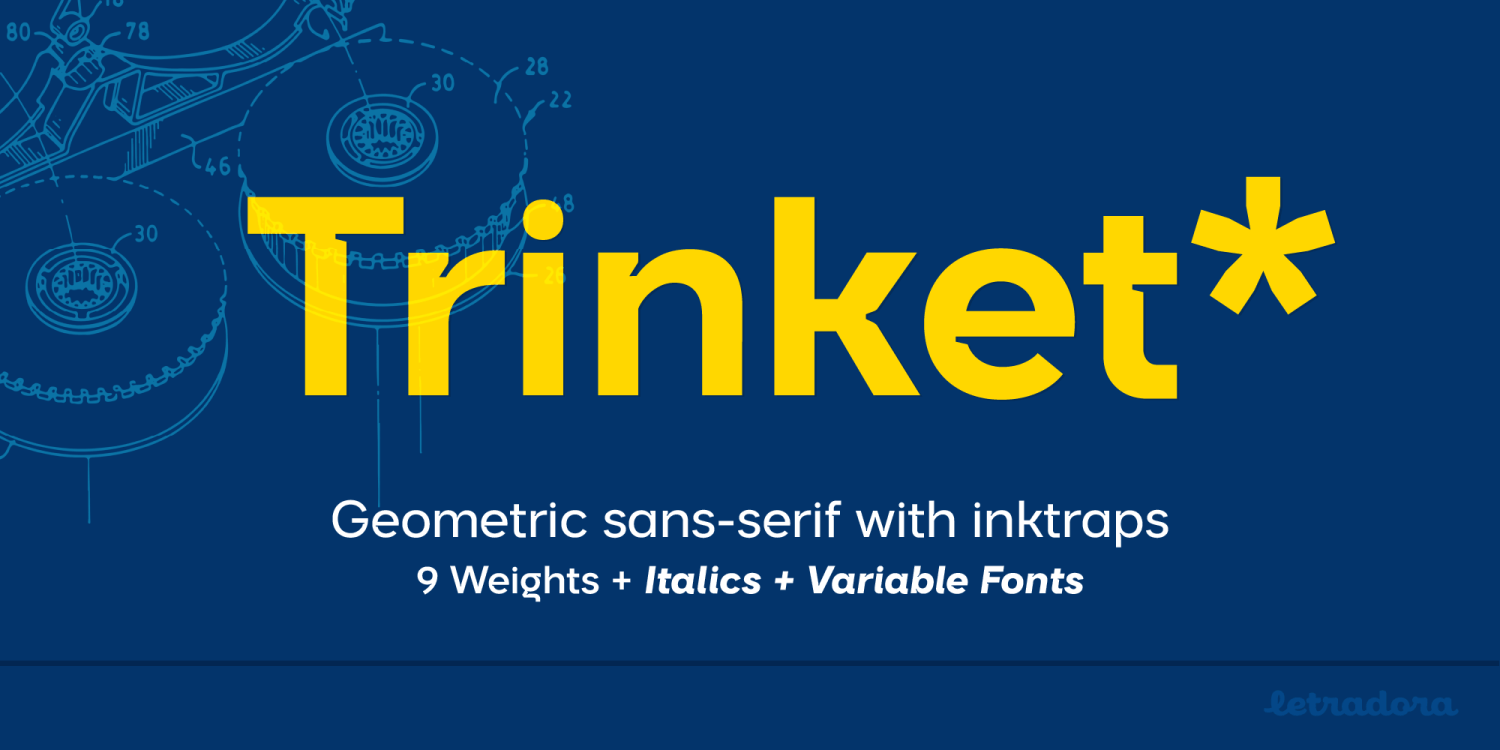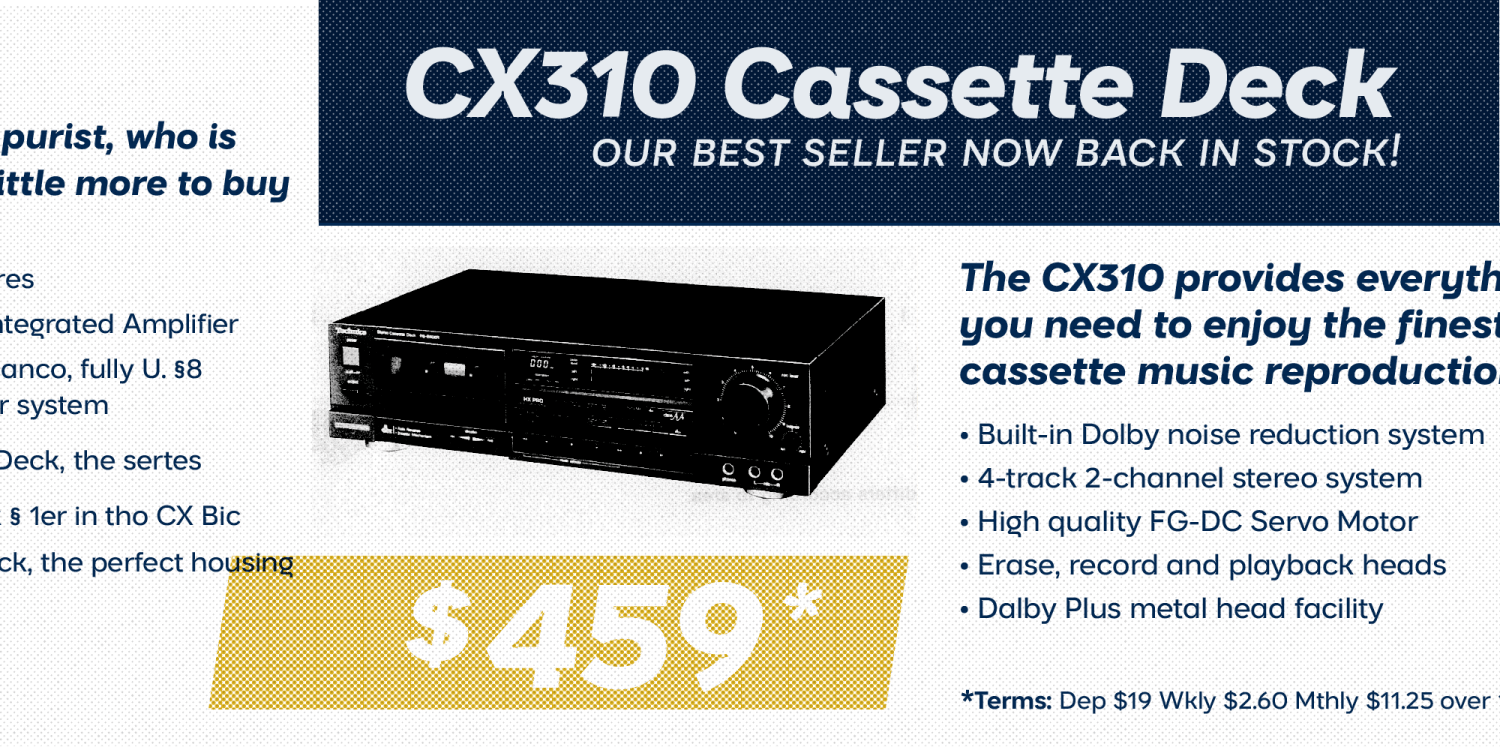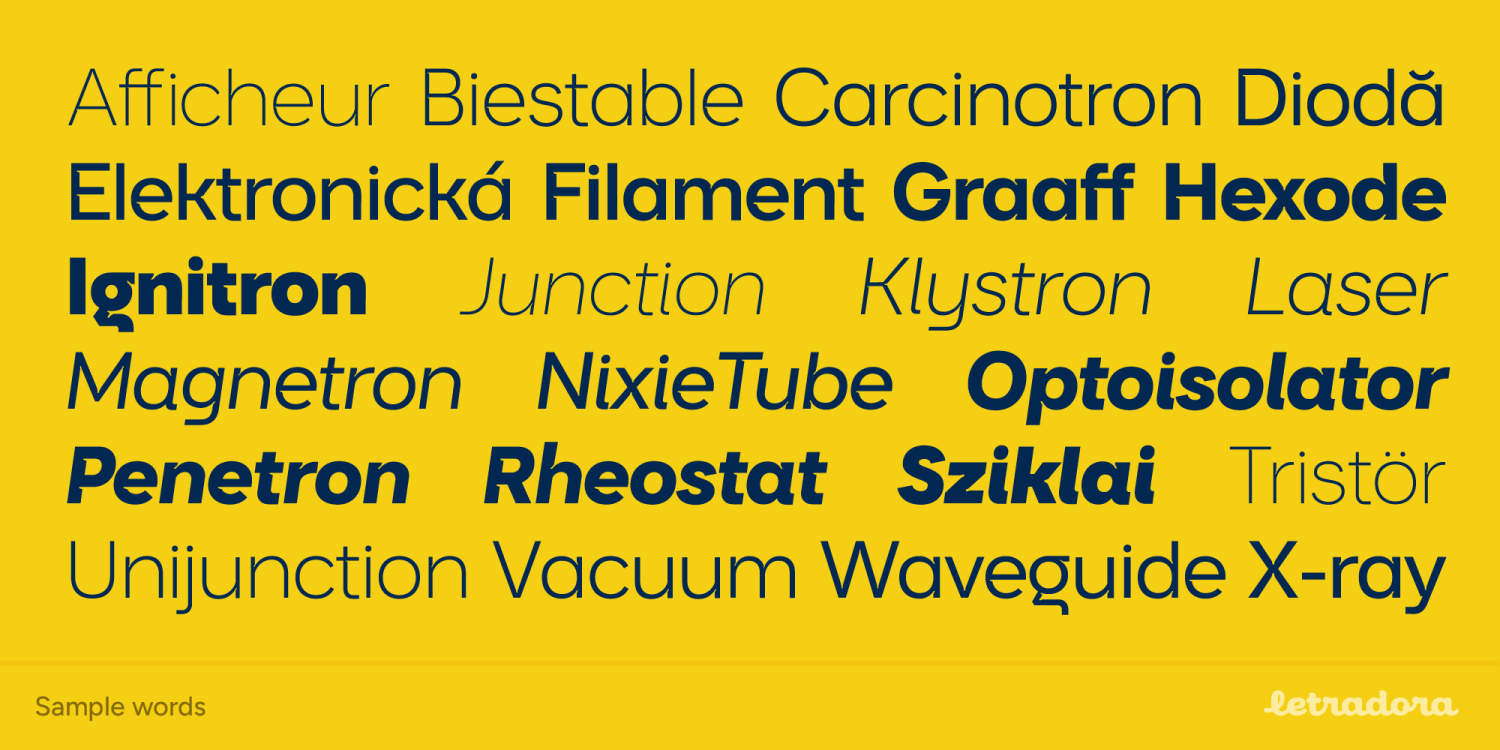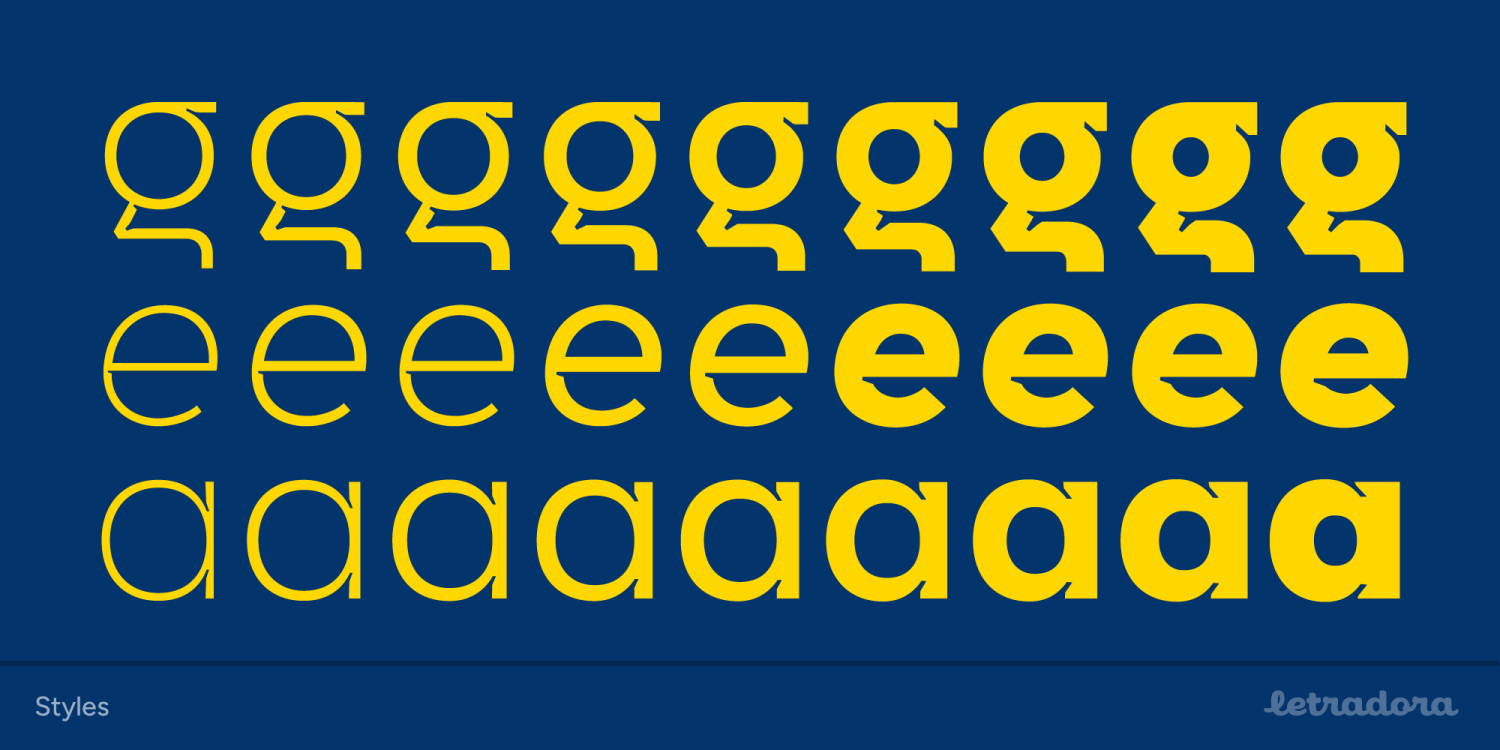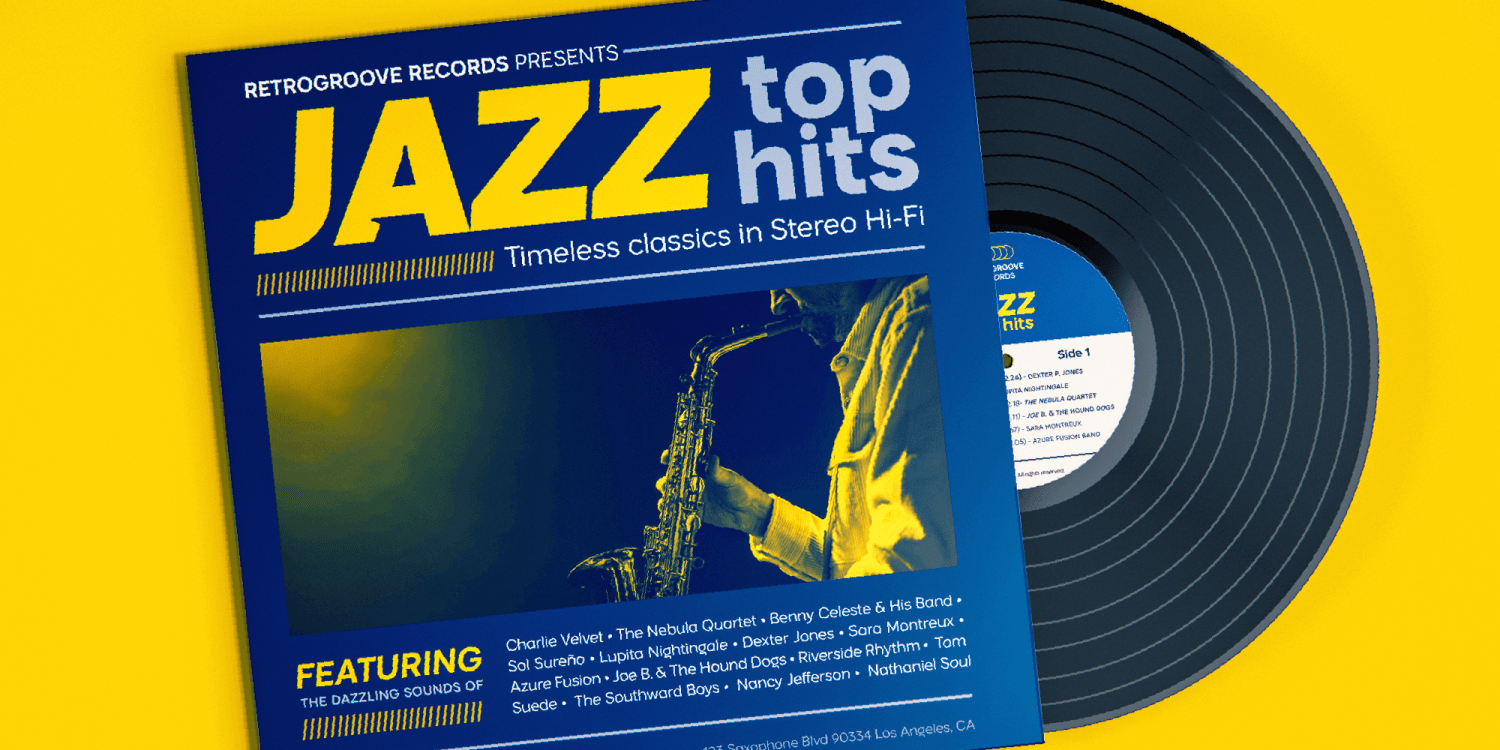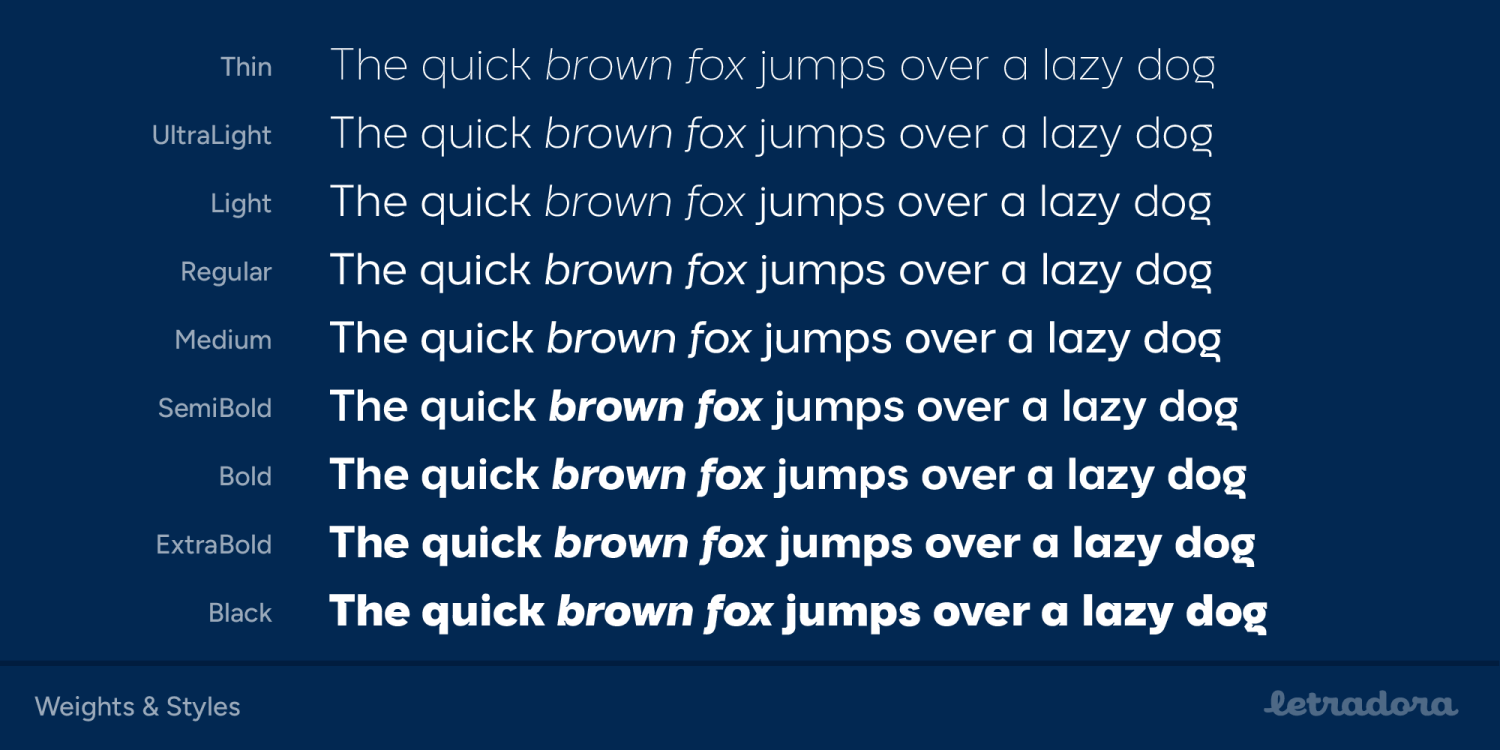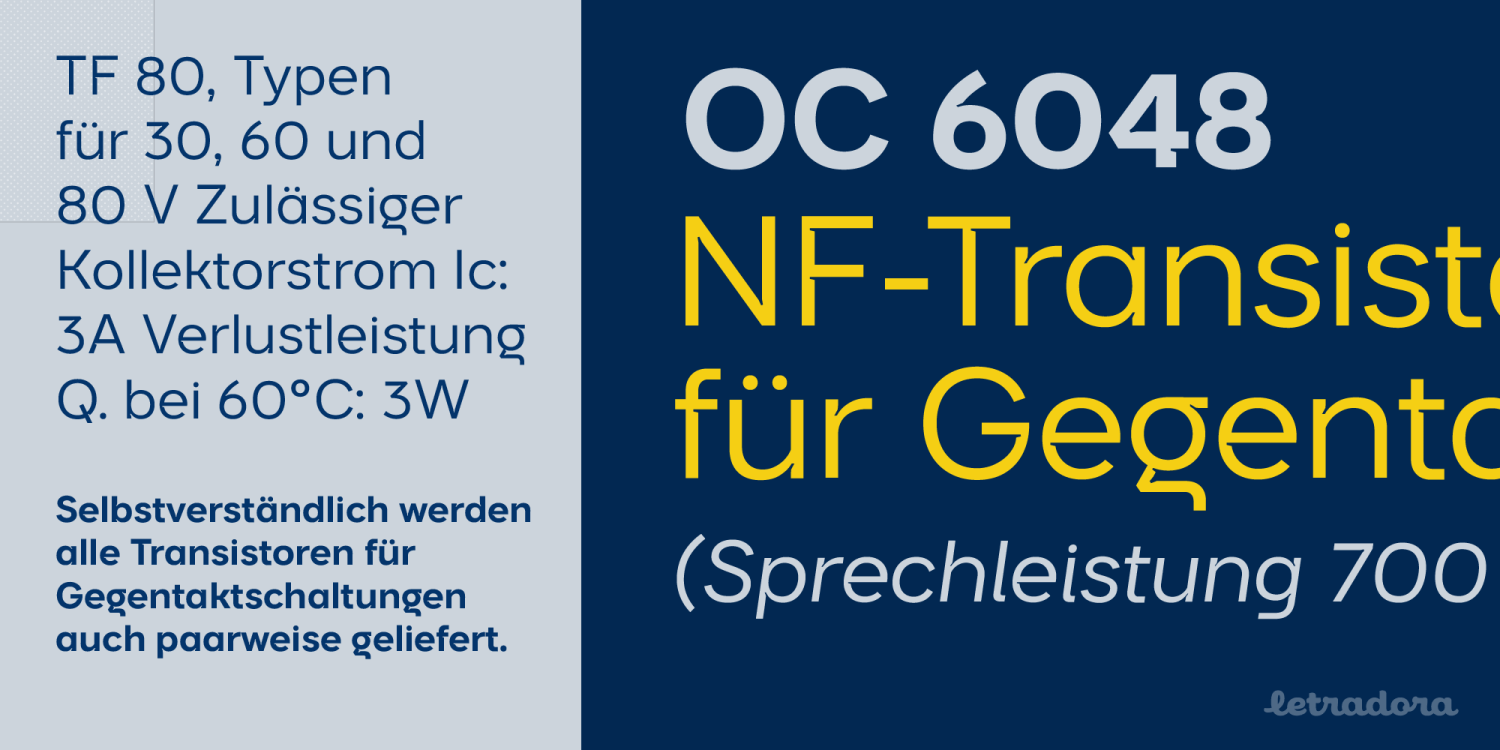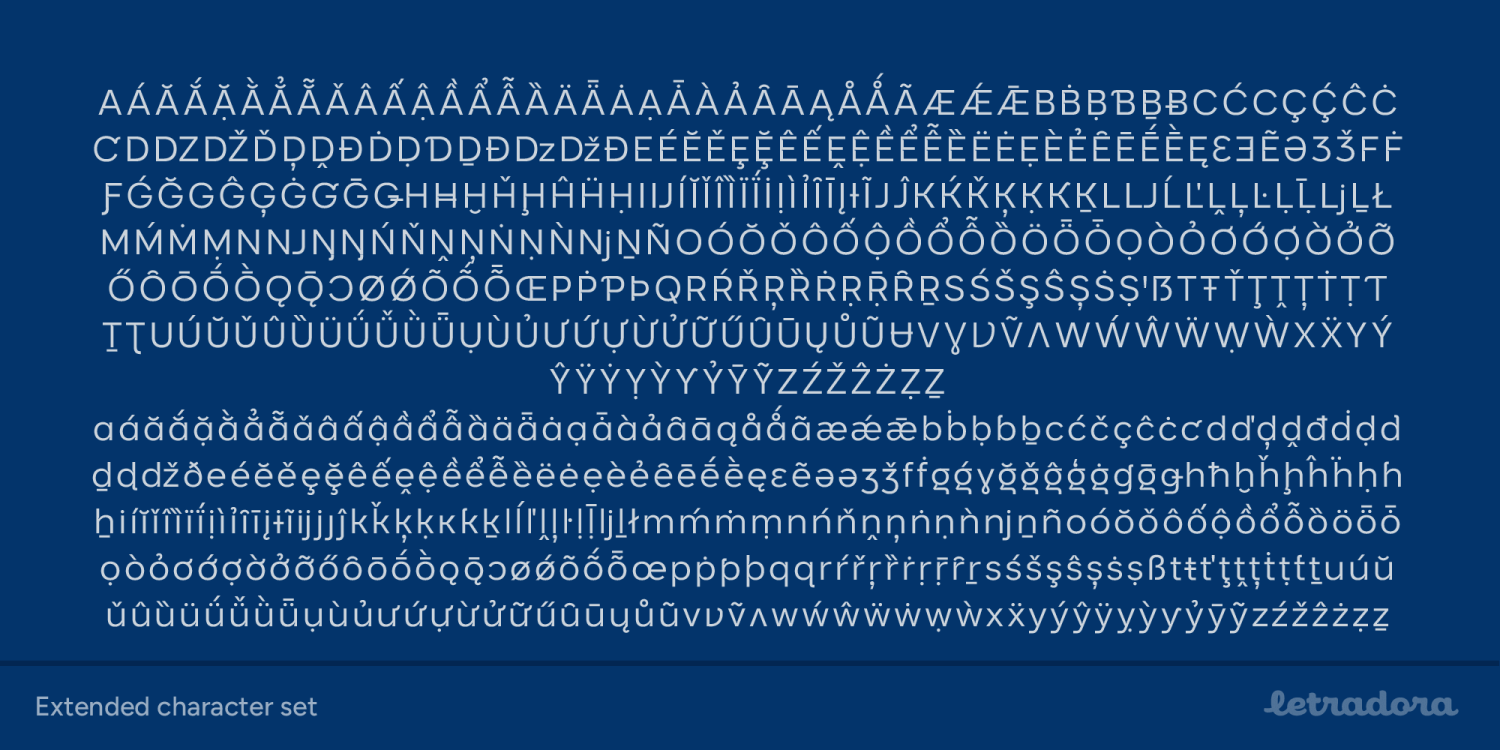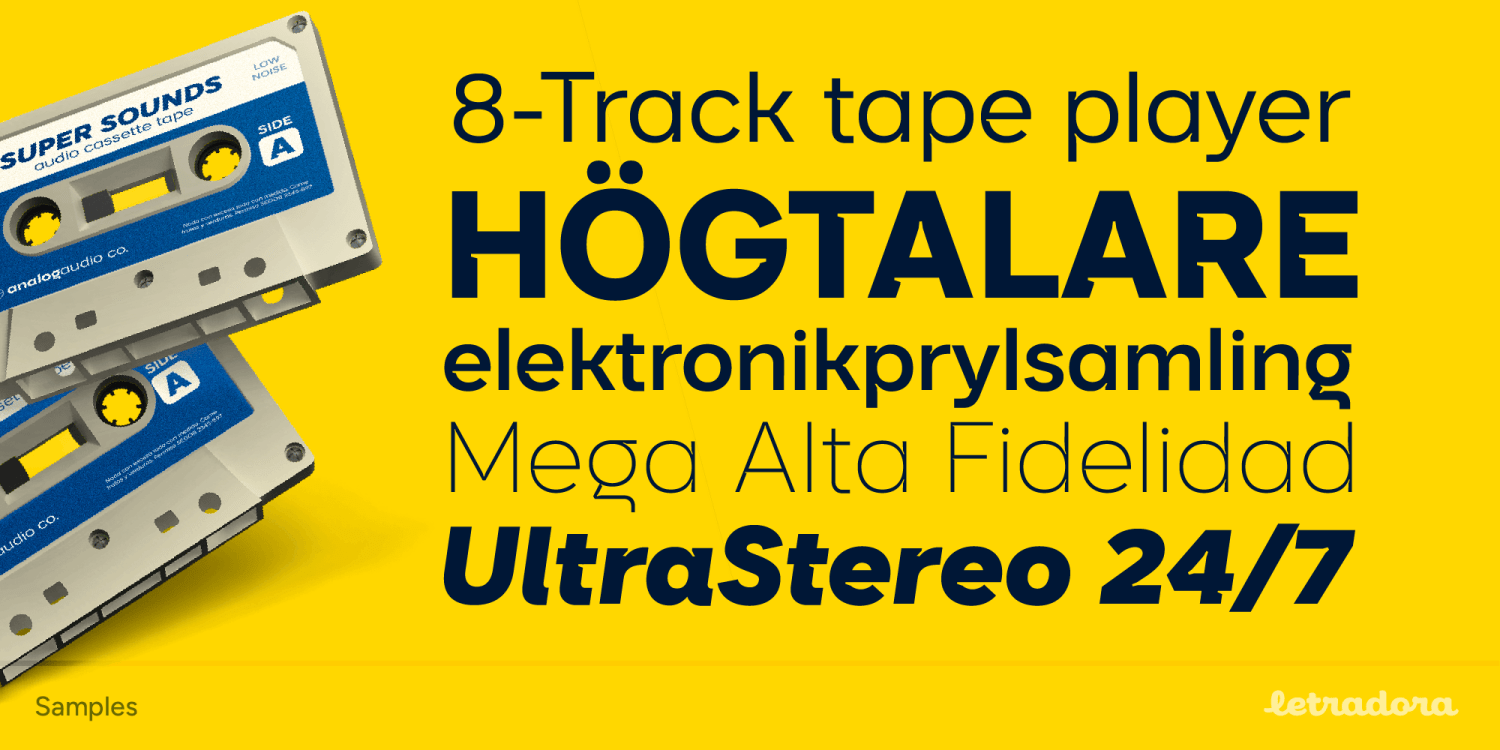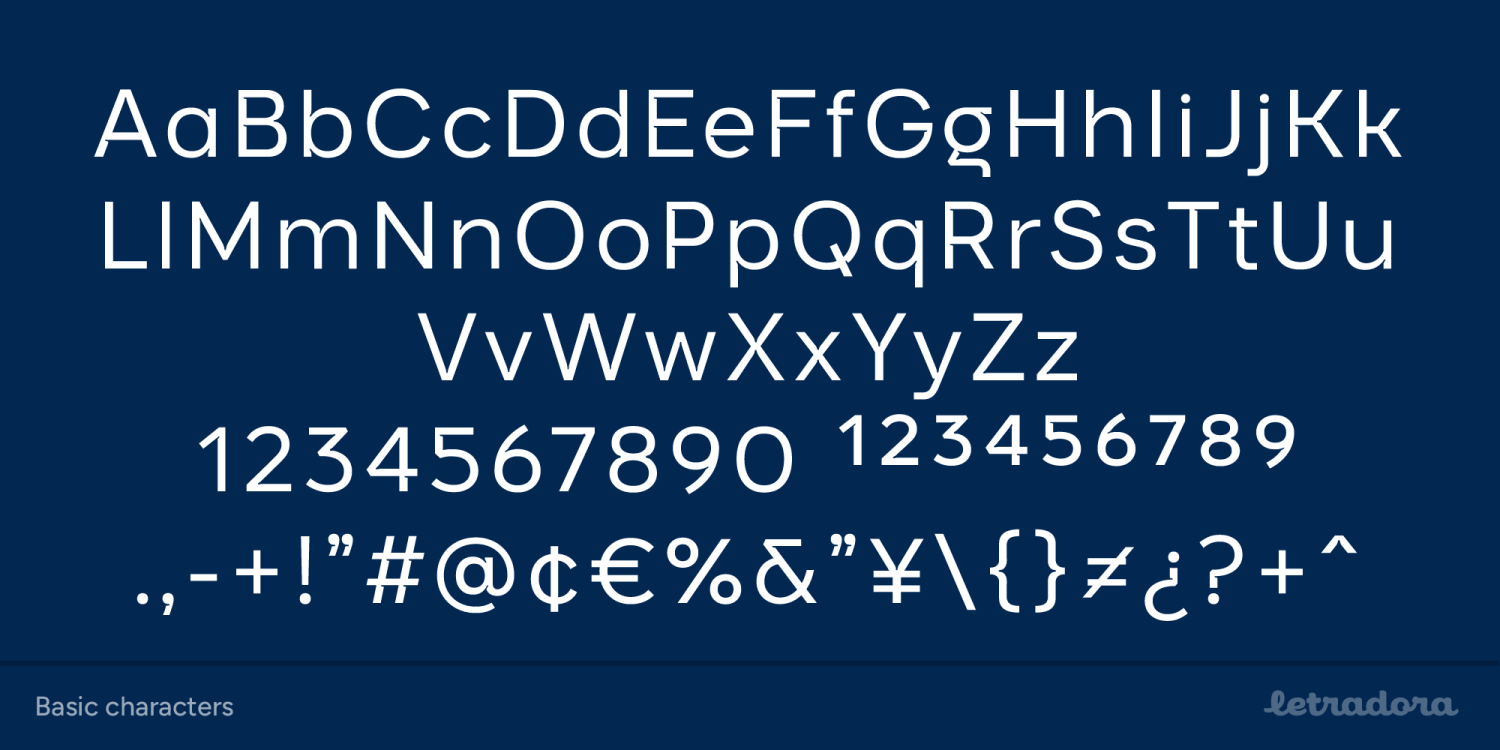
Trinket
Trinket is a clean, modern sans-serif with a geometric foundation and subtle inktraps that add a distinctive edge. Designed to be effortlessly adaptable, it comes in nine weights with matching true italics, giving you everything from delicate captions to bold, high-impact statements.
Perfect for branding, social graphics, packaging, posters, and polished UI work, Trinket feels crisp at large sizes and stays readable in longer text. It includes small caps, stylistic alternates, tabular figures, and supports 130+ languages.
If you’re looking for a contemporary sans that’s both versatile and full of personality, Trinket brings clarity, style, and a quietly confident voice to any project.